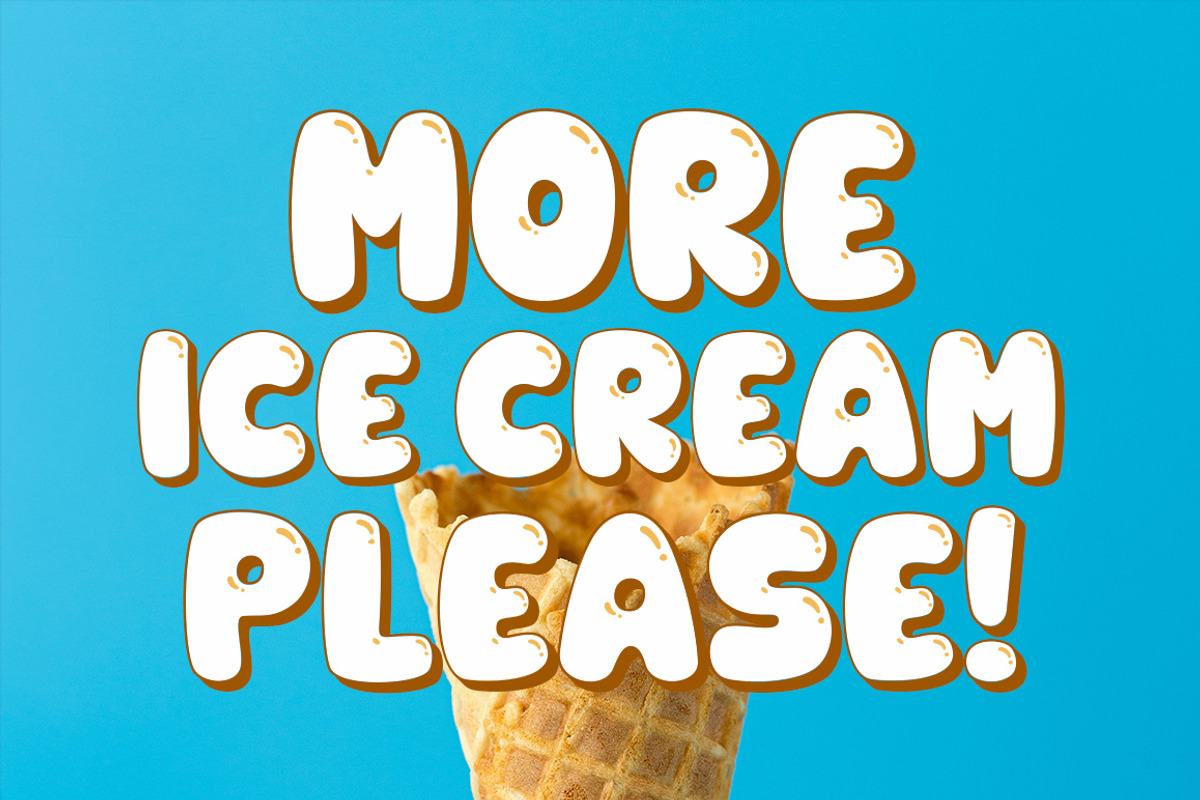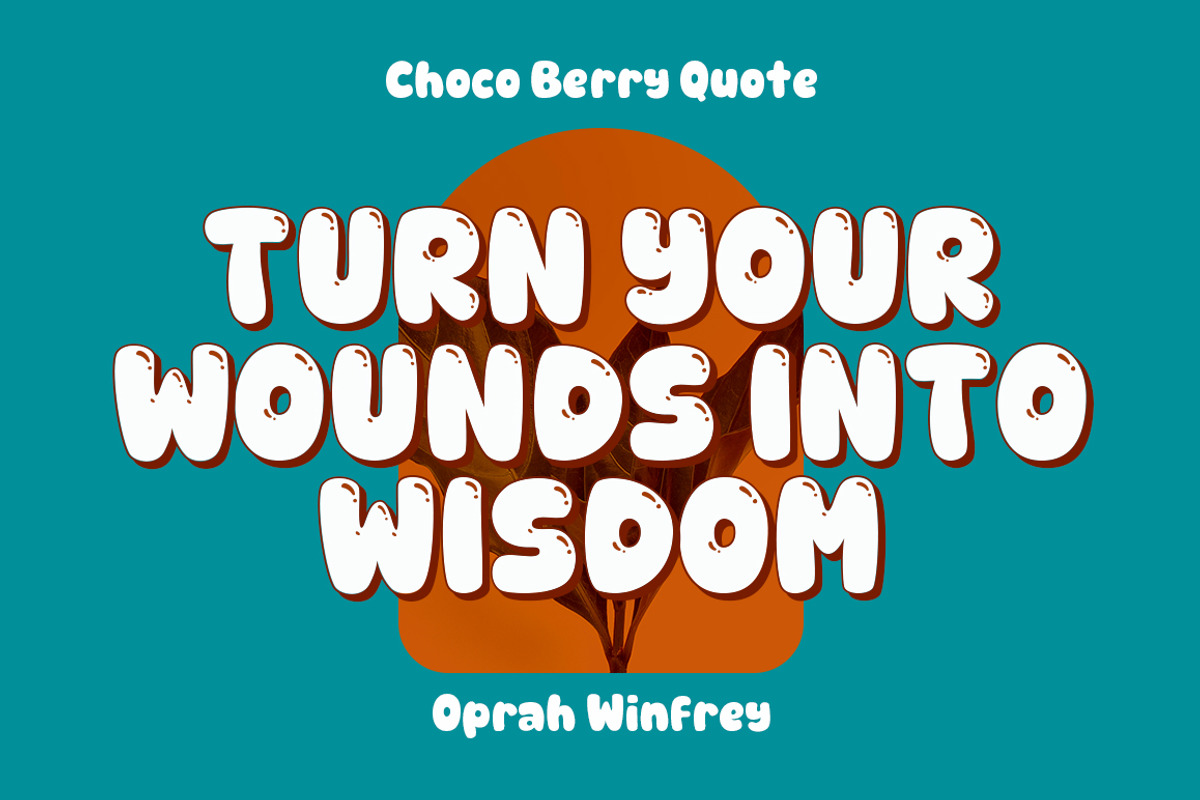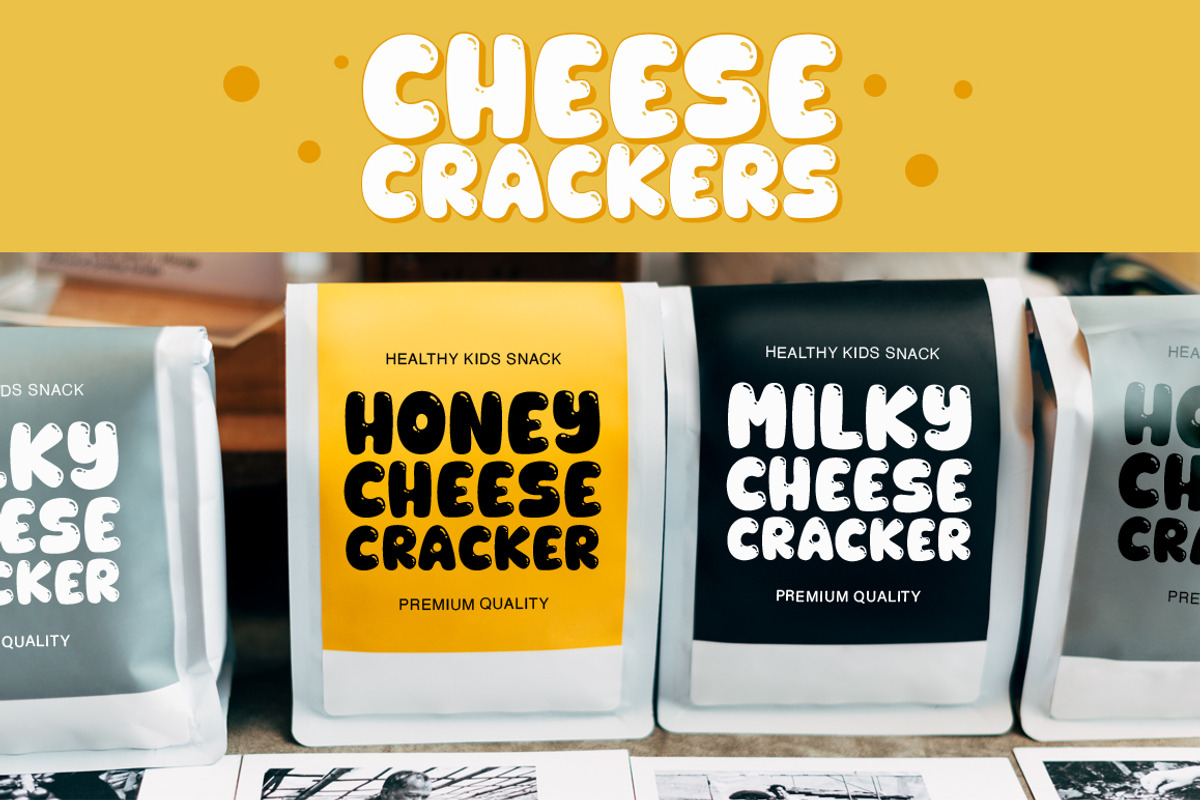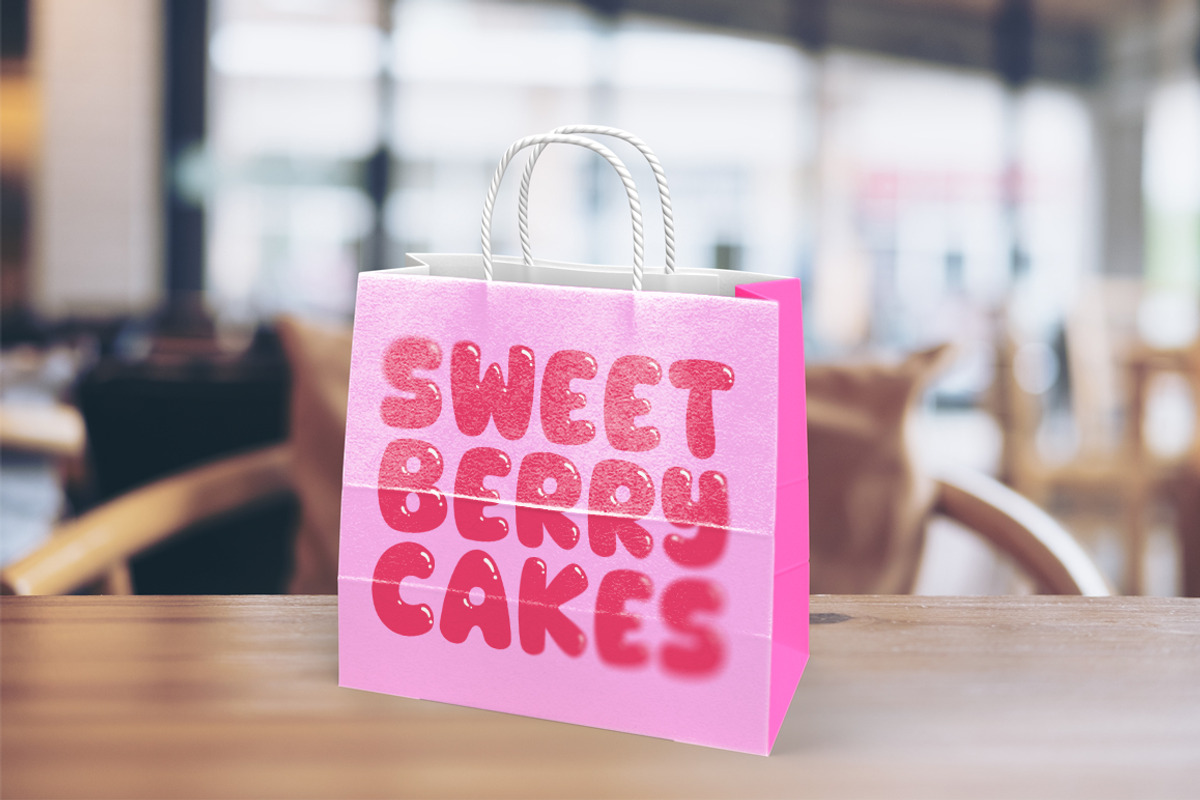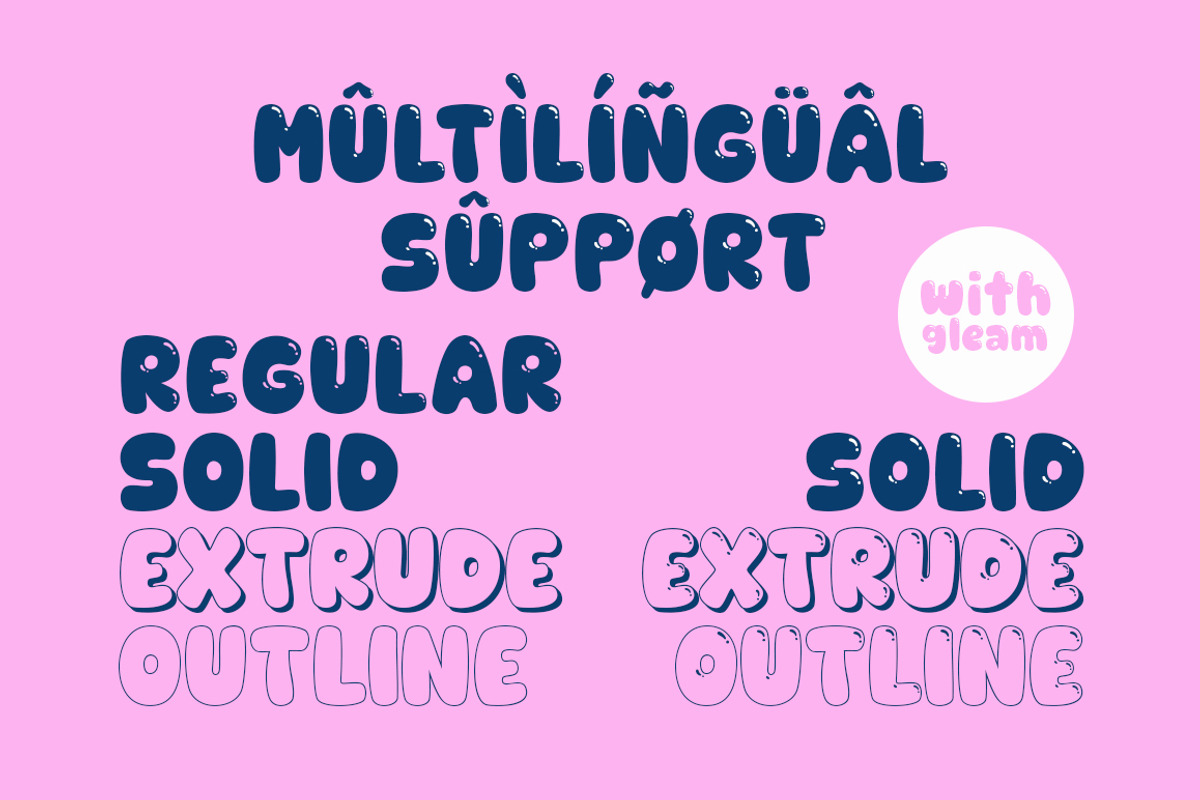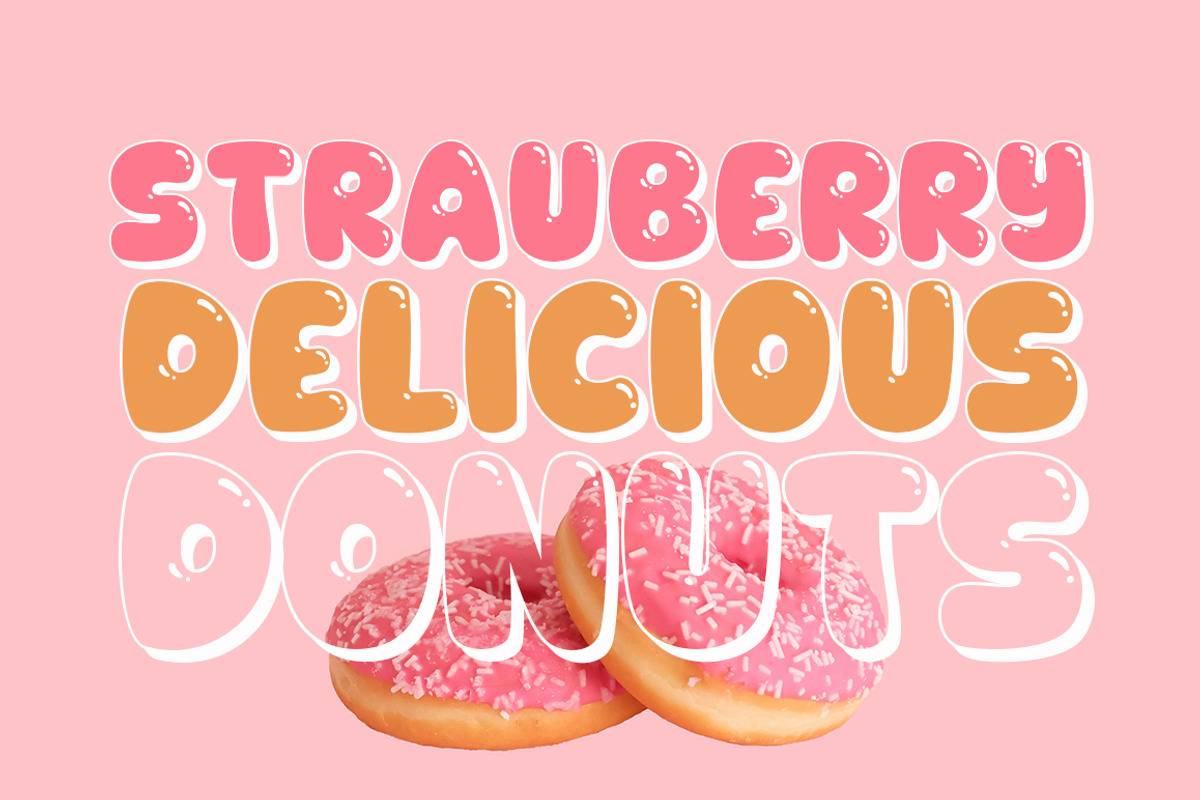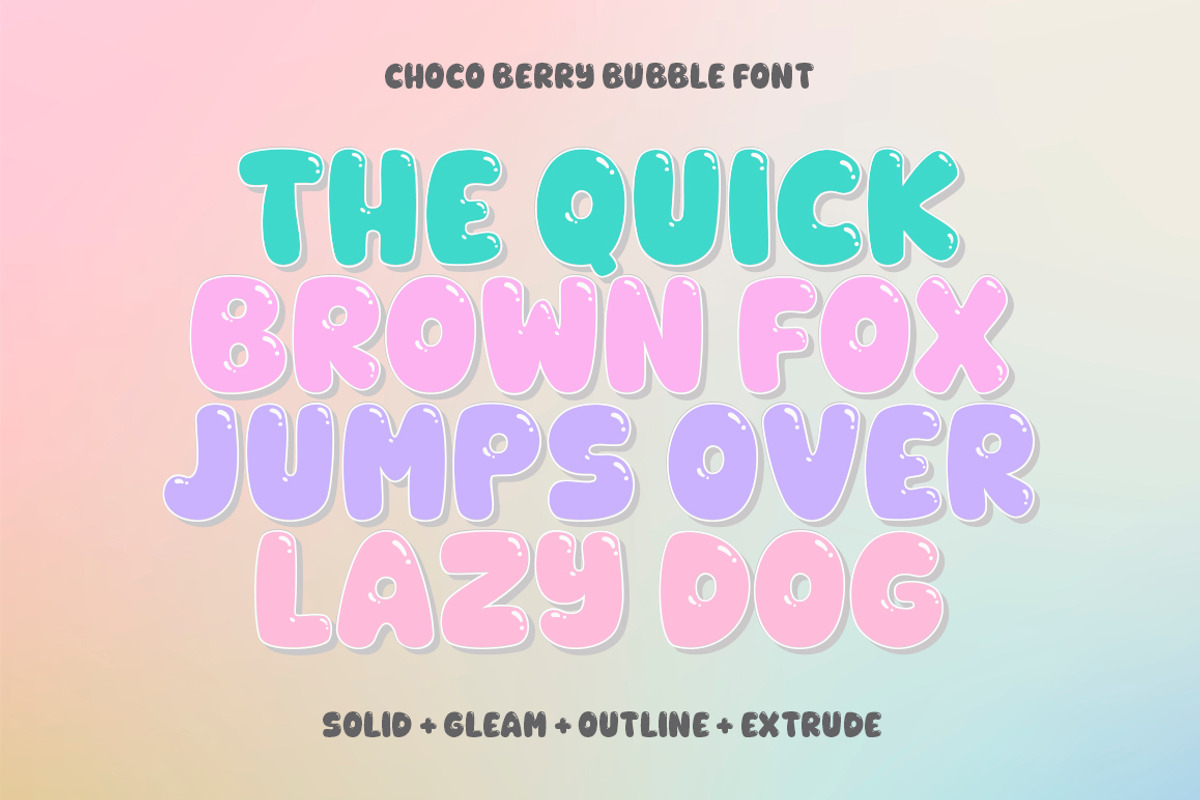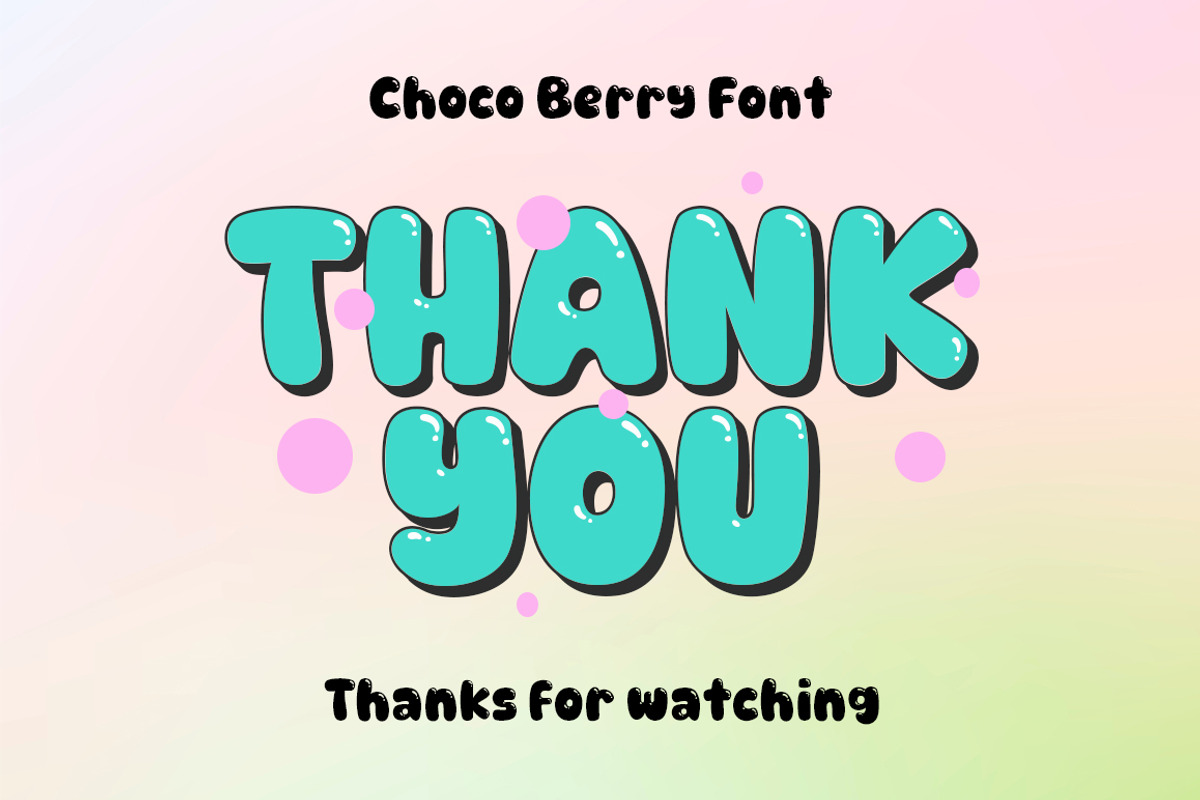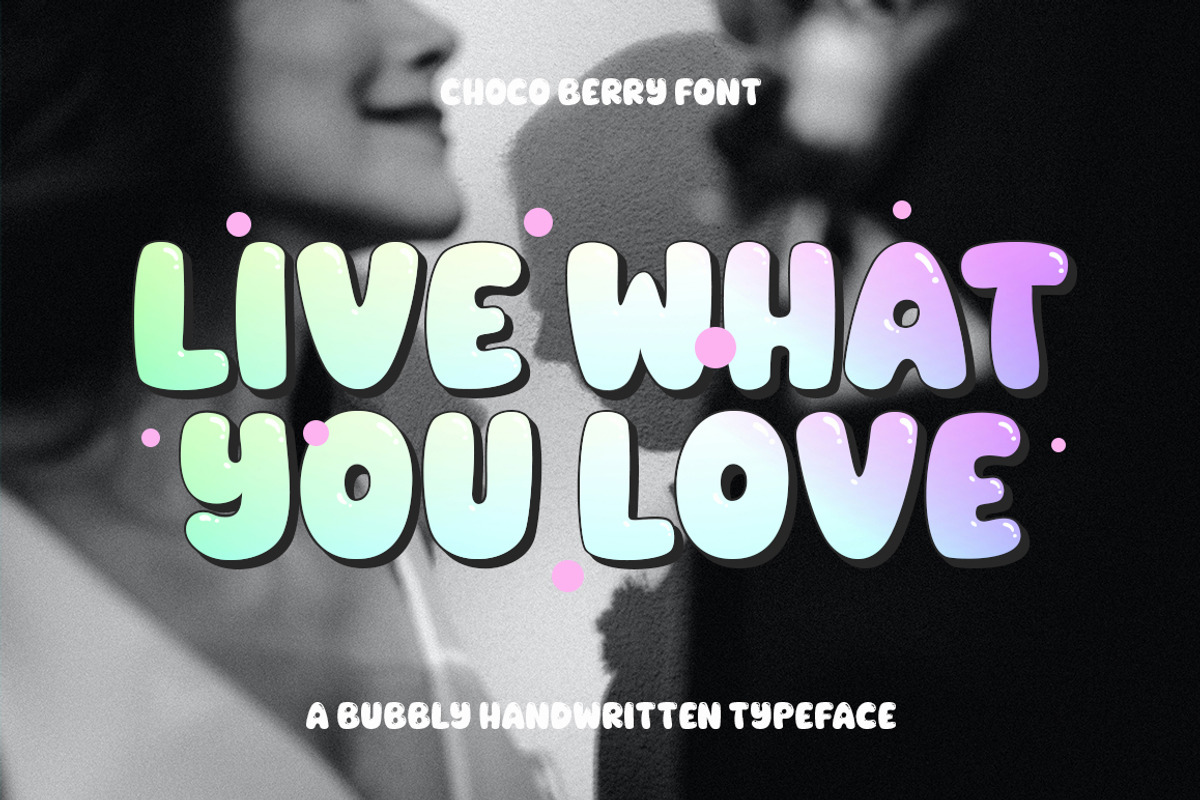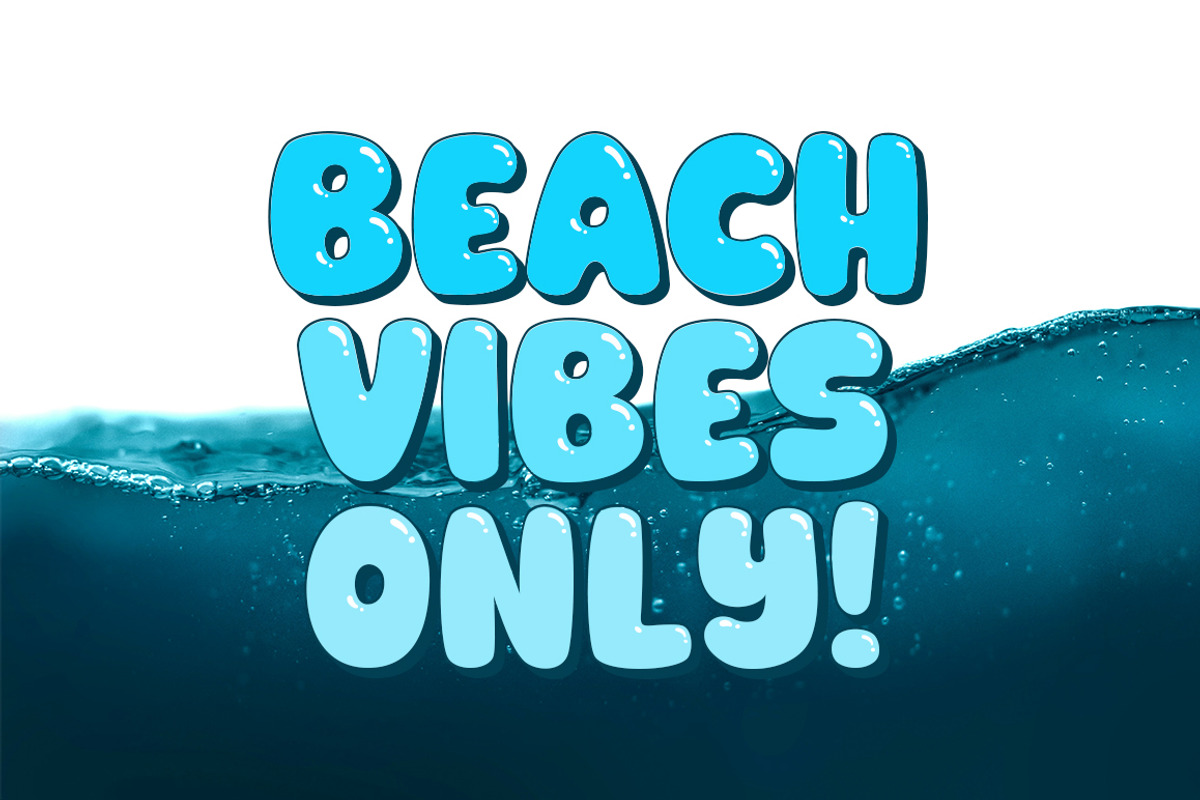
CHOCO BERRY FONT
CHOCO BERRY FONT sounds delightful! With its bubbly and playful hand-drawn style, it’s sure to add a touch of whimsy to any design. Whether it’s posters, t-shirts, stickers, mugs, quotes, or any other creative project, this font seems like the perfect choice to infuse some fun and personality. I can already imagine the colorful and lively designs it could inspire!